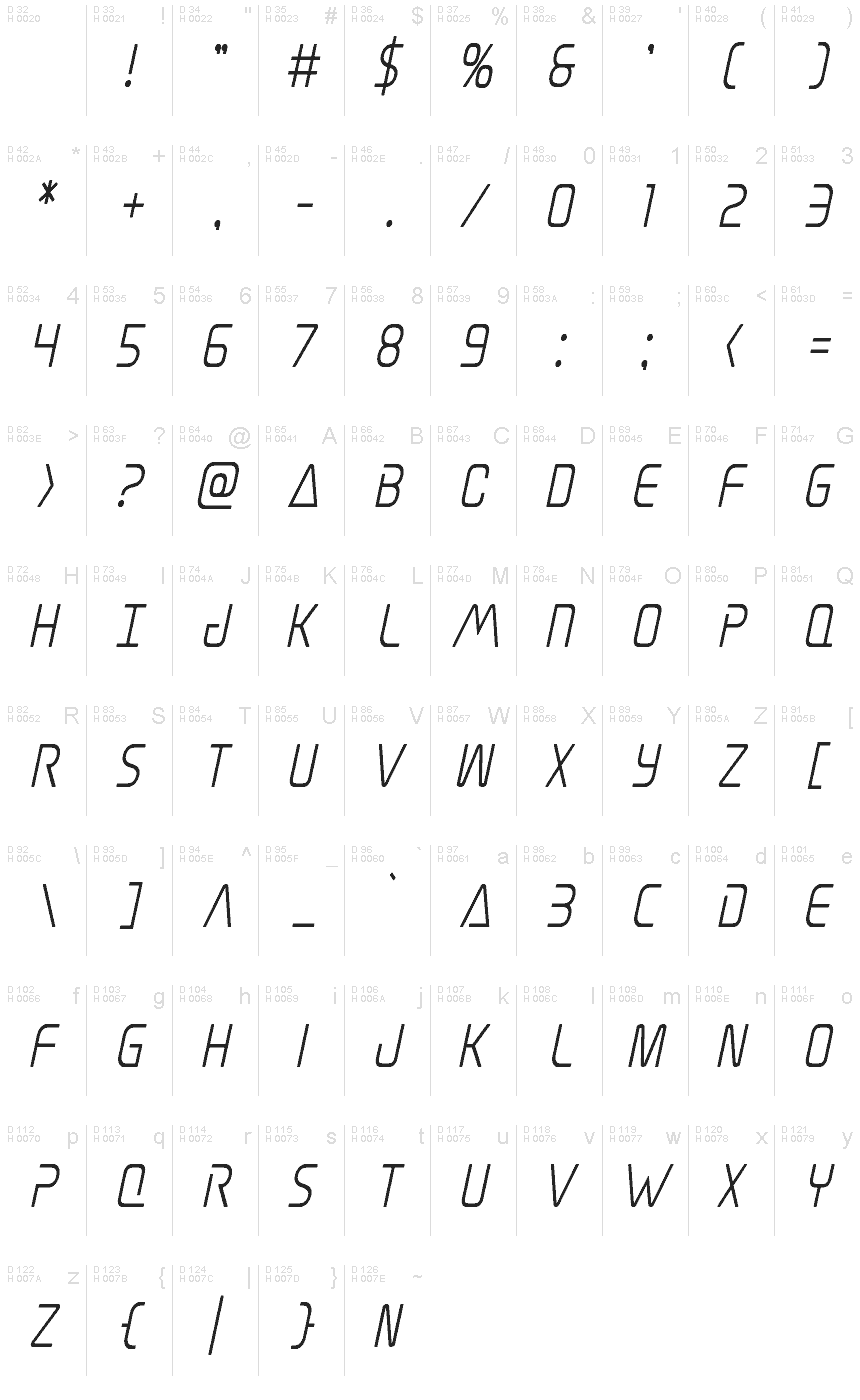
Elite Danger Semi-Bold ConItal
Elite Danger Semi-Bold ConItalic font by Iconian Fonts is a sleek and modern display font with a futuristic look. Designed with sharp angles and streamlined lines, this condensed font adds an unusual and artistic touch to your design projects.